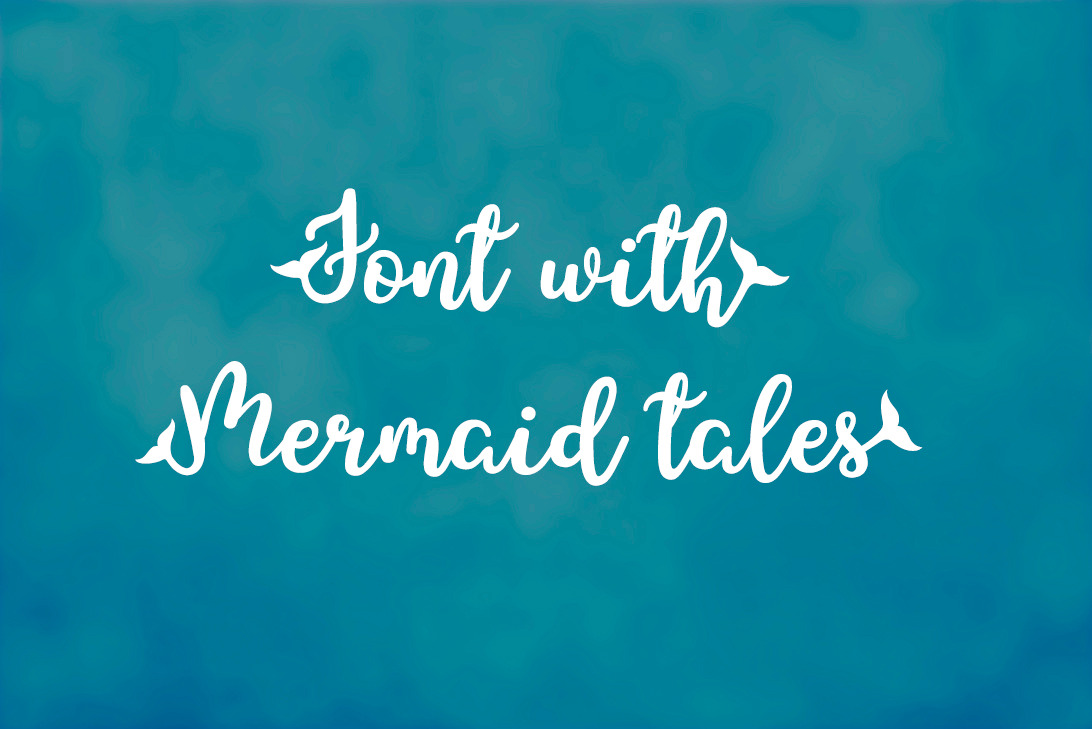
Mermaid font
Handwritten font with mermaid tails for your crafts. Each letters was made very carefully. So you may just type with it. Any message would look cute.